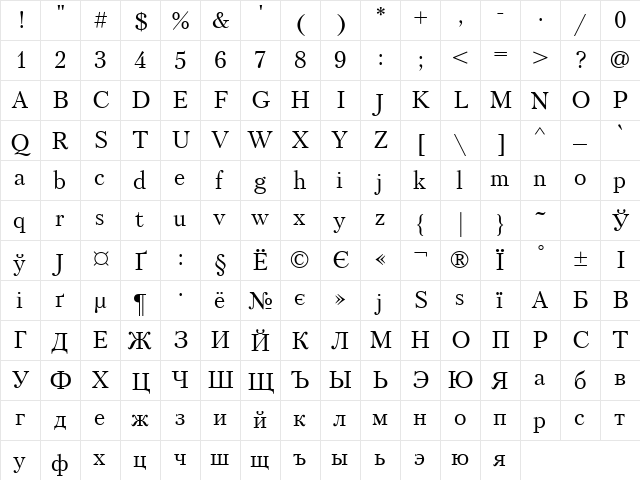
Petersburg Cyrillic
Design Context for Petersburg Typeface
Petersburg offers clean, dependable letterforms without strong stylistic allegiance, making it a practical choice for designers who need flexibility.